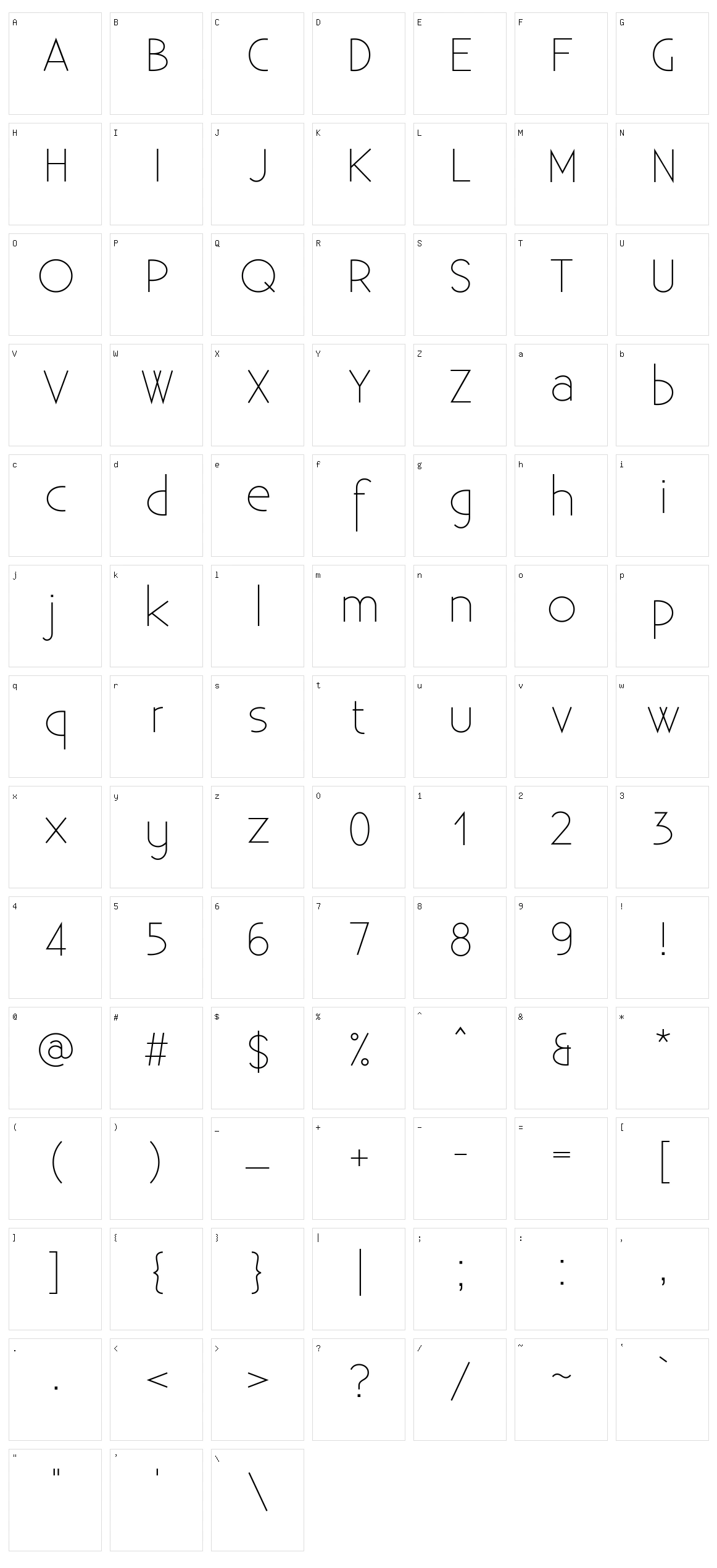
The free font Existence Light is carefully designed by Yeah Noah, showcasing a thoughtful balance of creativity and usability and falls under the Sans serif font style. When you download the ZIP file, it contains only 159.72 KB of font files, making it lightweight and quick to download. Please review the license details below to understand permitted usage and distribution rights. If license information is not available, we recommend using this font for personal projects only or contacting the author directly for commercial usage permissions.
Font name: Existence Light